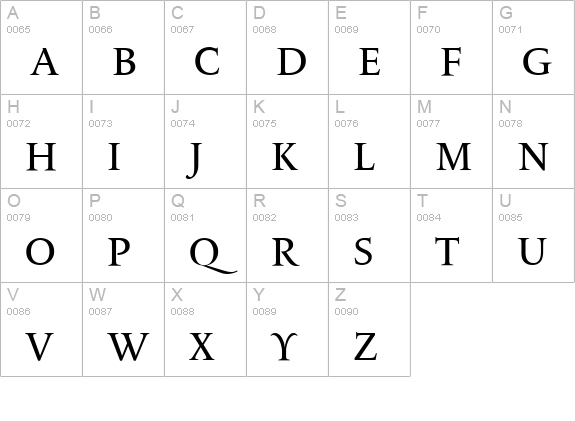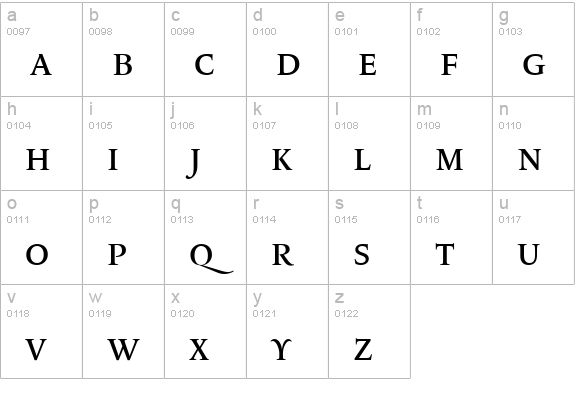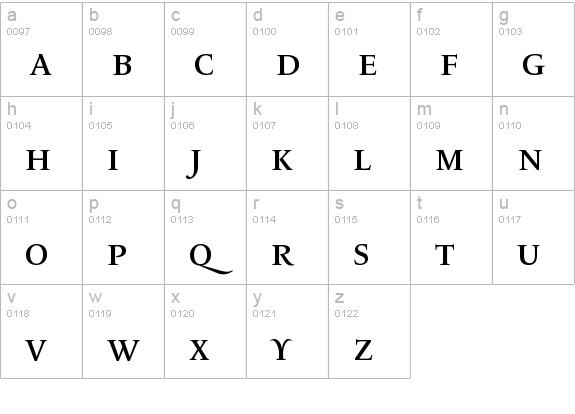
LeMondeLivreClassic Caps Font Details
Introducing LeMondeLivreClassic Caps, a stunning font that combines the elegance of classic typography with a modern twist. This font is perfect for adding a touch of sophistication and refinement to any design project. With its clean lines and beautifully crafted letterforms, LeMondeLivreClassic Caps is a true homage to the timeless beauty of classic typefaces. Its uppercase characters exude a sense of authority and grace, making it ideal for headlines, titles, and logos. But what truly sets LeMondeLivreClassic Caps apart is its versatility. Whether you're designing for print or digital media, this font will effortlessly elevate your work to new heights. Its legibility and visual impact make it a reliable choice for a wide range of applications, from editorial layouts to branding projects. And the best part? LeMondeLivreClassic Caps is available to download for free at FontsMarket.com. This means that you can enjoy all the benefits of this exceptional font without breaking the bank. Whether you're a professional designer or a hobbyist, this font opens up a world of possibilities for your creative endeavors. So why wait? Experience the timeless beauty and versatility of LeMondeLivreClassic Caps today. Download it for free at FontsMarket.com and let your designs speak volumes with this stunning font.